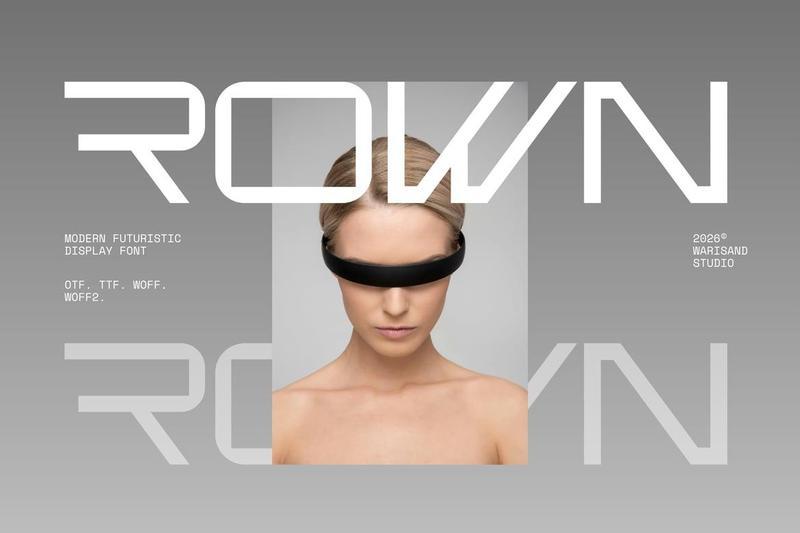
**Rown** is a sleek futuristic display font shaped for visual identities that need speed, precision, and a strong modern attitude. Its extended letterforms, sharp diagonal details, and clean tech construction create a striking logo font that feels advanced without losing readability. Rown is made for digital brands, technology projects, gaming visuals, sci-fi concepts, product interfaces, and bold creative campaigns that need a confident future-focused look.
With its minimal yet powerful structure, Rown gives posters, animation titles, movie graphics, esports branding, and modern headlines a clean cinematic presence. The square-inspired geometry and bold futuristic rhythm make it easy to build memorable logos, standout typography layouts, and high-impact promotional designs. Rown is a perfect font choice for designers who want a modern, digital, and technology-driven style with a premium visual edge.
Designed for creatives who want stylish, functional, and flexible typography for business identities, promotional materials, and standout visual projects.